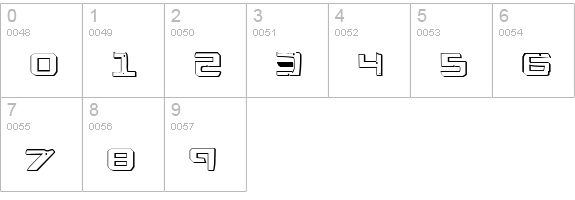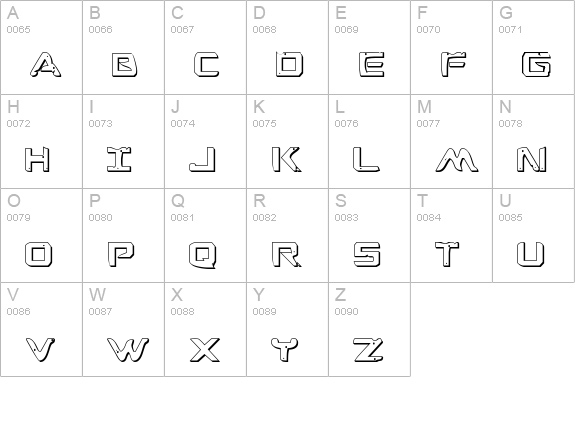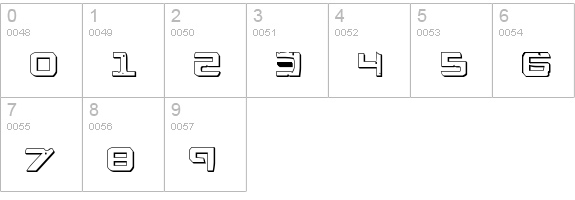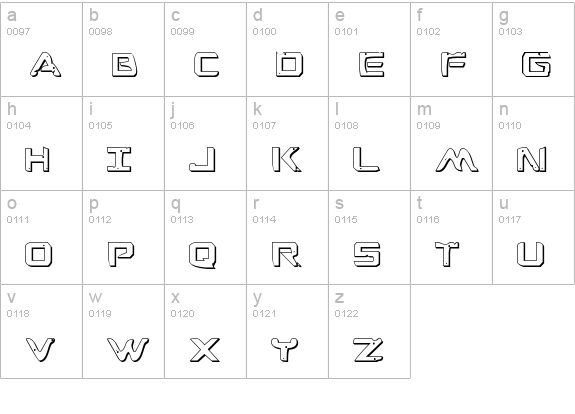
War Eagle 3D Font Details
The War Eagle 3D font is a stunning display typeface that brings a dynamic and powerful aesthetic to any design project. With its bold and intricate 3D design, this font exudes strength and sophistication, making it perfect for headlines, logos, posters, and more. The sharp angles and detailed textures of the letters give a unique edge to any text, ensuring that your message stands out with a sense of authority. What makes the War Eagle 3D font even more appealing is that it is available for free download at FontsMarket.com. This means you can easily access this eye-catching typeface and elevate your design work without any cost. Whether you're a designer looking to add a touch of flair to your projects or a creative individual seeking a font that commands attention, the War Eagle 3D font is a fantastic choice that won't break the bank. Download it today and let your creativity soar with this impressive and impactful typeface.